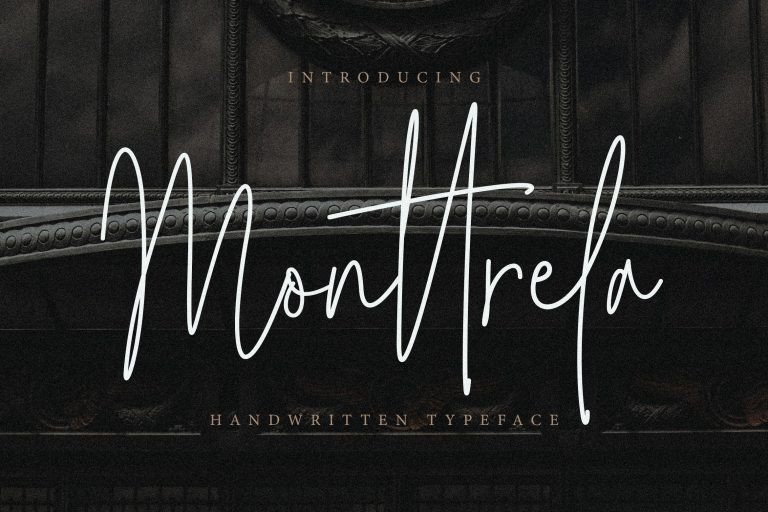
Monttrela Signature Font Free
Monttrela Signature Font is a Elegant script that feels elegant Handwritten, and modern. It’s designed and shared by Creatype Studio. And It’s a stylish and incredibly elegant script font. It looks stunning on wedding invitations, thank you cards, quotes, greeting cards, logos, business cards and every other design which needs a handwritten touch.
Monarchy Signature comes with Multilingual Support, some alternates and ligatures, and swashes.